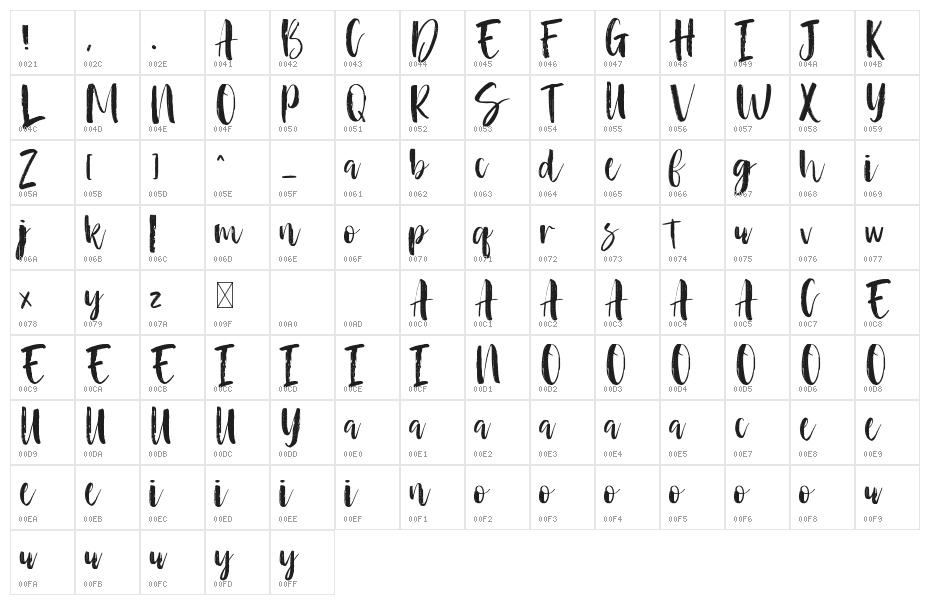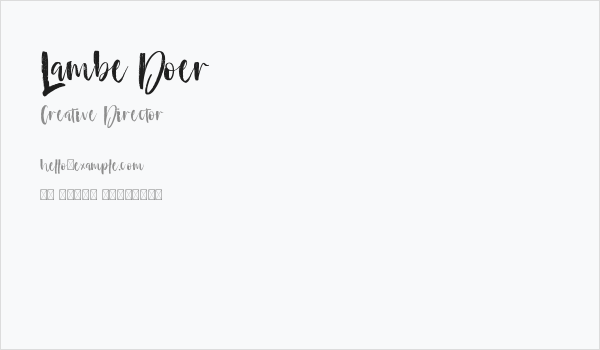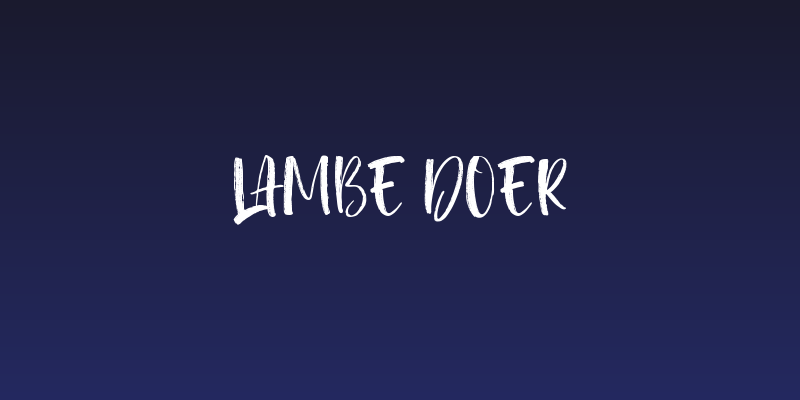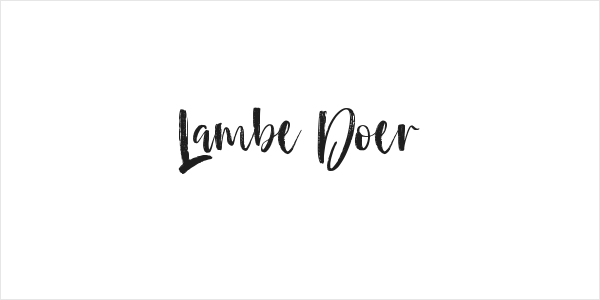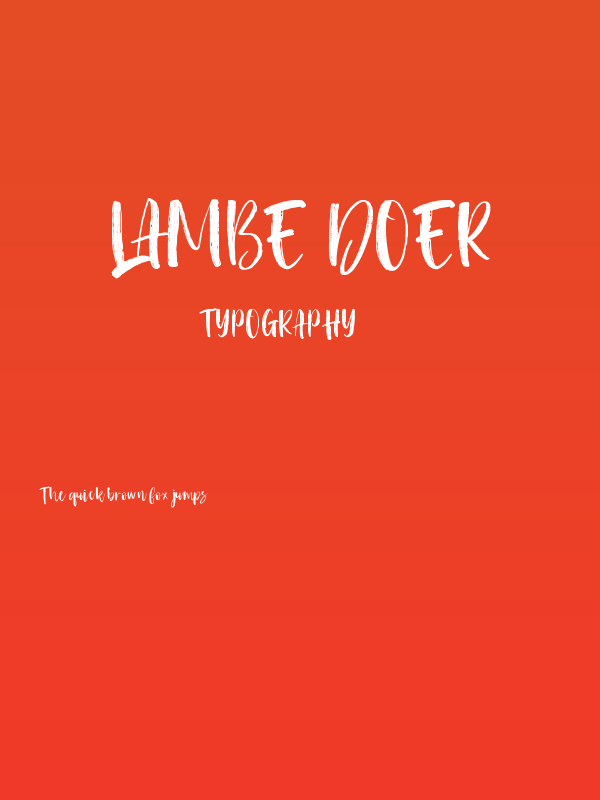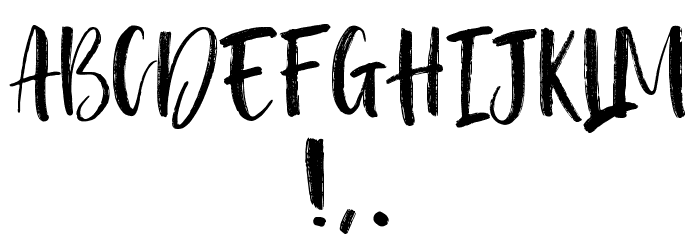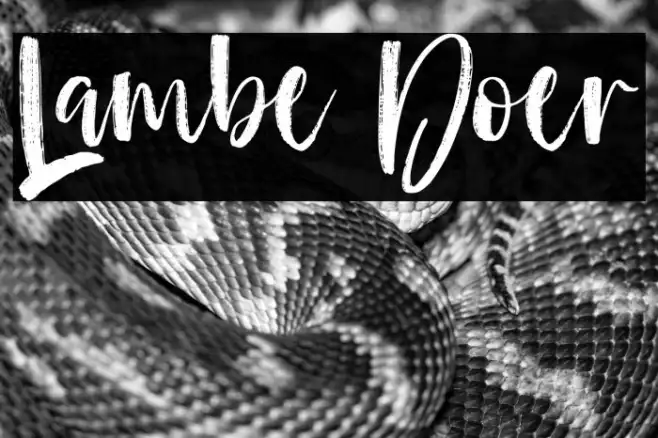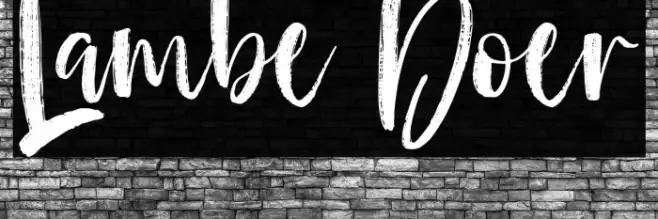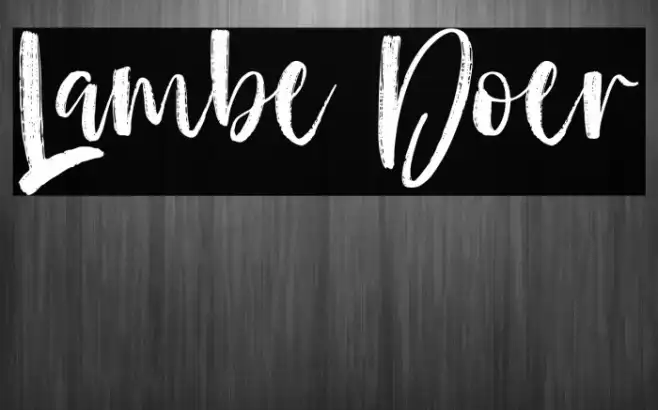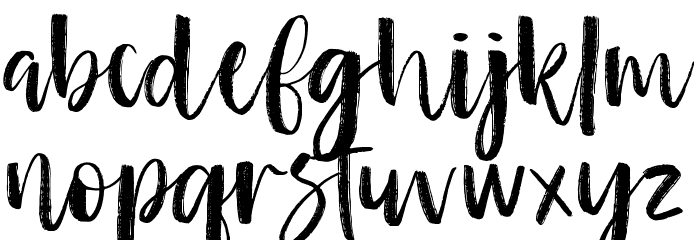
Lambe Doer Font
Lambe Doer Description
This font exhibits a bold and expressive handwritten style, characterized by its brush-like strokes and dynamic flow. The letters are crafted with varying thickness, giving a sense of movement and energy. The uppercase and lowercase letters maintain a consistent style, with some letters featuring elongated strokes that add to the font's artistic flair. The numbers and special characters are designed to match the overall aesthetic, ensuring a cohesive look. This font's organic and freeform appearance makes it ideal for creative projects that require a personal touch.